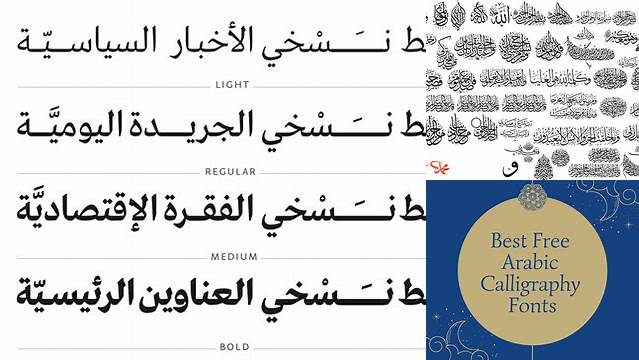
Arabic calligraphy, also known as khat, is the artistic practice of handwriting and calligraphy based on the Arabic alphabet. It is revered in the Arab world and beyond as the primary art form, representing the rich cultural and religious heritage of Islamic civilization. The elegance and fluidity of Arabic script have captivated artists and designers for centuries, making it a sought-after element in various creative projects. If you're looking to infuse your designs with the beauty of Arabic calligraphy on your Windows 10 system, you're in the right place! Guys, in this comprehensive guide, we'll explore everything you need to know about finding, downloading, and installing Arabic calligraphy fonts for free on your Windows 10 computer. We'll delve into the different types of fonts available, where to find them, how to install them, and even some tips for using them effectively in your projects. Let's dive in and discover the stunning world of Arabic calligraphy fonts!
Understanding Arabic Calligraphy Fonts
Before we jump into the download process, let's take a moment to understand the nuances of Arabic calligraphy fonts. Unlike Latin scripts, Arabic script is cursive, meaning letters connect to each other. This connectivity gives Arabic calligraphy its characteristic flow and elegance. There are various styles, each with its unique features and historical significance. Recognizing these styles will help you choose the perfect font for your project.
Key Styles of Arabic Calligraphy
- Naskh: Naskh is one of the most widely used scripts, known for its clarity and legibility. It's a versatile style suitable for body text and general-purpose use. If you are seeking for a font that is clean, clear, and easy to read, Naskh should be your first choice. This font is the backbone of the Arabic typesetting world, so it's crucial to have a good grasp on what Naskh offers. Its timeless appeal makes it a staple in both traditional and modern designs. Understanding Naskh helps you appreciate the nuances of other more stylized scripts, as it often serves as a foundational style in calligraphic education. When exploring various Arabic fonts, always consider Naskh as a benchmark for readability and versatility.
- Thuluth: Thuluth is characterized by its bold and ornate letterforms. It is frequently used in architectural inscriptions and decorative headings. If you're aiming to make a bold statement with your design, Thuluth is the way to go. Its majestic presence instantly elevates any project, making it ideal for headings, titles, and decorative elements. Thuluth fonts often feature intricate ligatures and sweeping curves, adding a touch of elegance and sophistication. This script is deeply rooted in history, gracing the facades of mosques and the pages of ancient manuscripts. Using Thuluth isn't just about choosing a font; it's about embracing a rich artistic legacy. While it demands attention, use it judiciously to avoid overwhelming your overall design.
- Kufic: Kufic is one of the oldest forms of Arabic script, distinguished by its angular and geometric shapes. It is often found in ancient Islamic manuscripts and monuments. The Kufic script is not just a font; it's a historical artifact, each character telling a story of ancient artistry and precision. If you're looking to inject a sense of history and gravitas into your project, Kufic is an unmatched choice. Its angular, geometric forms provide a stark contrast to the flowing curves of other Arabic scripts, making it perfect for designs that require a strong, bold statement. From architectural inscriptions to digital art, Kufic lends a timeless quality that transcends trends. Using Kufic effectively means understanding its roots; this knowledge enhances your design's message and impact.
- Diwani: Diwani is a cursive script known for its rounded and flowing letterforms. It's often used in official documents and formal correspondence. If you are looking for a font that exudes elegance and sophistication, Diwani is an excellent choice. Its fluid, sweeping curves and intricate letter connections make it a standout option for projects that require a touch of refinement. The very nature of Diwani lends an air of formality, making it particularly suitable for invitations, certificates, and formal announcements. But Diwani's beauty isn't just about aesthetics; it's also about functionality. Its unique characteristics make it both distinctive and legible, even in complex compositions. Using Diwani strategically can elevate your design, adding a layer of artistic flair that speaks volumes about your attention to detail. So, whether it's for a wedding invitation or a corporate logo, Diwani offers a timeless appeal that bridges tradition and modernity.
- Ruq'ah: Ruq'ah is a simplified and highly legible script commonly used in handwriting and everyday documents. If you need a font that mimics the natural flow of handwriting, Ruq'ah is the ideal choice. Its simple, yet elegant letterforms make it perfect for body text, notes, and casual correspondence. The beauty of Ruq'ah lies in its practicality; it's designed for speed and clarity, making it one of the most widely used scripts in the Arab world. For designers, Ruq'ah provides a touch of authenticity and warmth, especially in projects that aim to feel personal and approachable. Imagine using it for a blog post, a handwritten quote overlay, or even in a scrapbooking layout. Ruq'ah isn't just a font; it's a versatile tool that connects the digital with the personal.
Considerations When Choosing a Font
- Project Type: What are you working on? A formal invitation calls for a different font than a casual poster.
- Readability: Ensure the font is legible, especially for body text.
- Style: Does the font's style match the overall tone and message of your project?
Where to Find Free Arabic Calligraphy Fonts
Now that you have a better understanding of Arabic calligraphy fonts, let's explore the best places to find them for free. The internet is a treasure trove of resources, but it's important to use reputable sites to avoid malware and copyright issues.
Reputable Websites for Free Fonts
- Google Fonts: Google Fonts is a fantastic resource offering a wide selection of open-source fonts, including several Arabic calligraphy styles. The advantage of using Google Fonts is the assurance of quality and compatibility. Guys, you can easily embed these fonts into your websites or download them for desktop use. Google Fonts offers a hassle-free experience with clear licensing terms, ensuring you can use the fonts freely in your projects. The interface is user-friendly, allowing you to preview different font styles and weights before making a decision. Plus, Google Fonts is constantly updated with new additions, making it a go-to resource for designers. So, if you're looking for high-quality, reliable Arabic calligraphy fonts, Google Fonts should be your first stop.
- Font Squirrel: Font Squirrel is another excellent website that curates high-quality free fonts for commercial use. You'll find a variety of Arabic calligraphy fonts here, all with clear licensing information. Font Squirrel distinguishes itself by meticulously vetting each font to ensure it's not only free but also of professional quality. This means you can download fonts with confidence, knowing they are suitable for commercial projects. The site's easy-to-navigate interface allows you to filter fonts by various criteria, making it simple to find the perfect Arabic calligraphy style for your needs. With its commitment to quality and clarity, Font Squirrel is a valuable resource for designers seeking legally sound and visually stunning fonts.
Arabic calligraphy fonts offer a unique and beautiful way to enhance your design projects. With the abundance of free resources available, you can easily find and install these fonts on your Windows 10 system. By understanding the different styles of Arabic calligraphy and following the tips outlined in this guide, you'll be well-equipped to create stunning designs that showcase the elegance and artistry of Arabic script. So, go ahead, guys, explore the world of Arabic calligraphy fonts and let your creativity flow! Remember to always check the licensing terms before using any font, especially for commercial projects, and enjoy the process of creating beautiful designs with these exquisite typefaces.